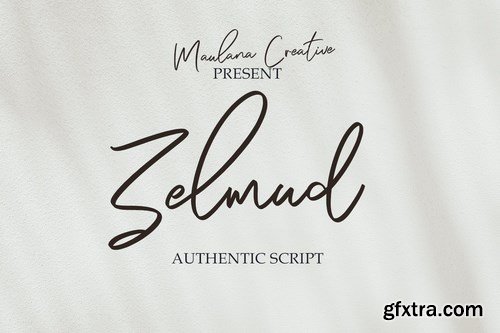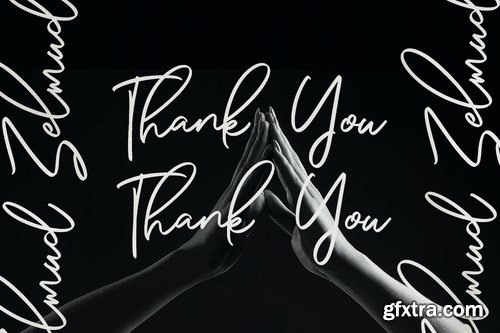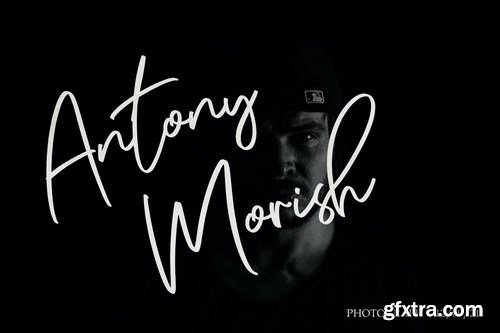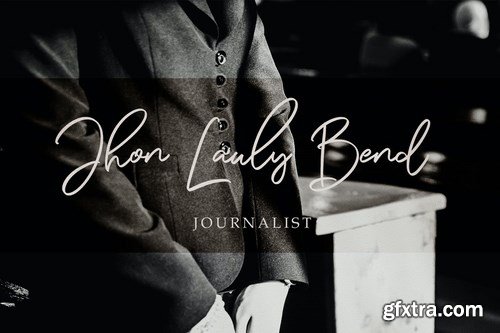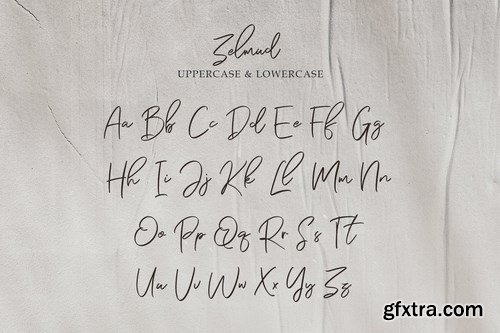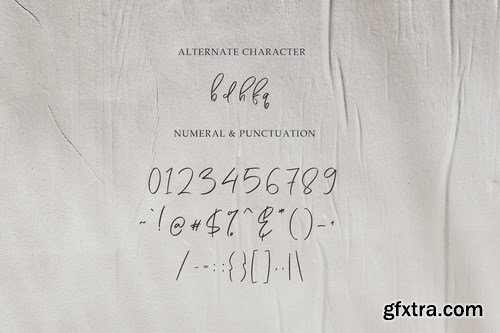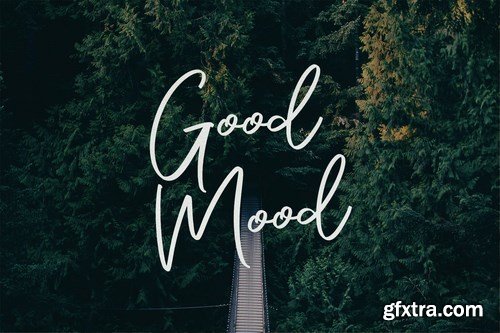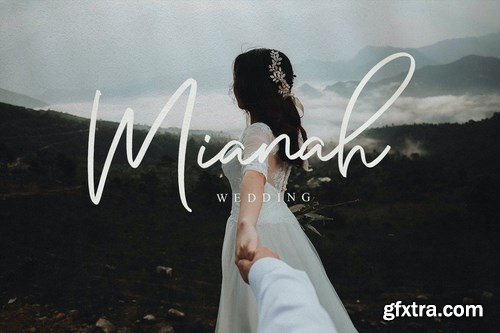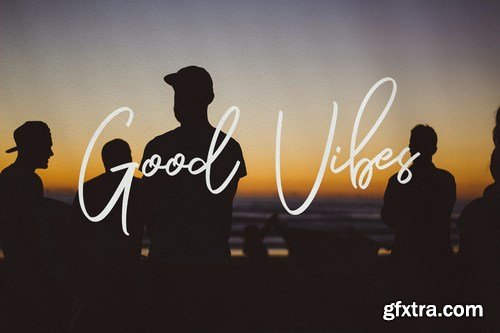
Zelmud Authentic Script Font is an expressive signature script font. With regular felt-tip stroke, fun character with some of ligatures and extra swash. To give you an extra creative work. Zelmud Authentic Script Font support multilingual more than 100+ language. This font is good for logo design, Social media, Movie Titles, Books Titles, a short text even a long text letter and good for your secondary text font with sans or serif. Make a stunning work with Zelmud Authentic Script Font.